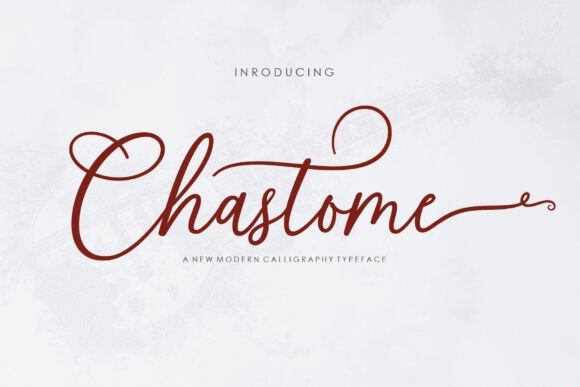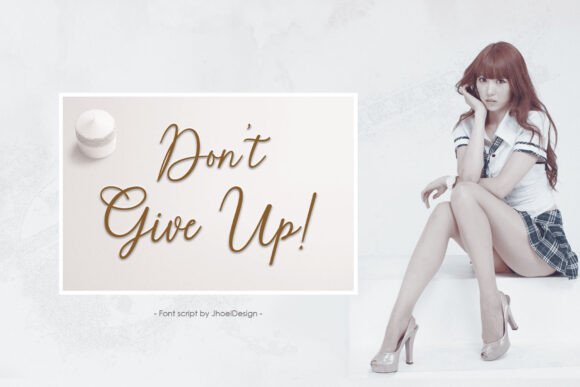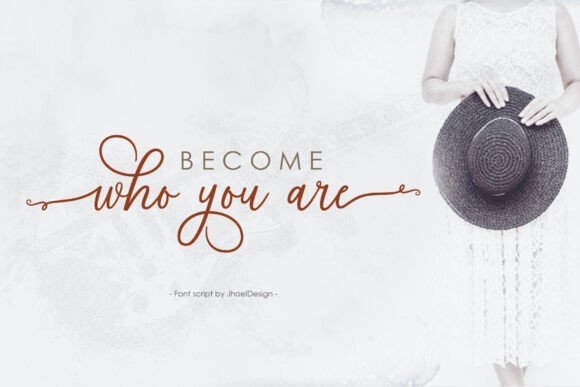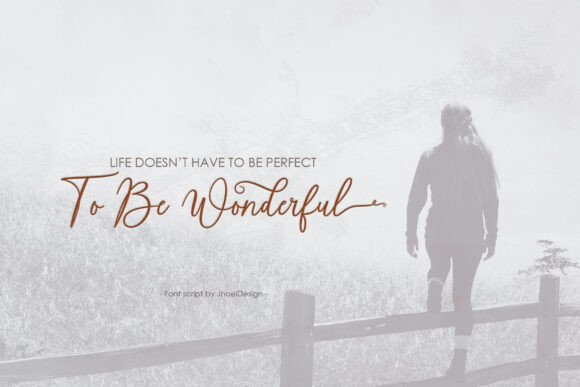
Chastome Script Font
About the Chastome Script Font
We are excited to introduce Chastome Script Font, a must-have typeface for any serious designer. Chastome Script includes the full set of upper and lower case letters, multilingual symbols, numbers, and punctuation, standard ligatures, stylistic alternates.
This is perfect for your various design needs, such as logos and branding, social media posts, advertisements, business cards, product design etc.
Chastome Script Font Usage Examples
Chastome Script Font Example